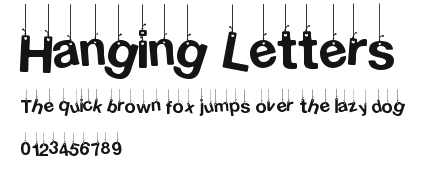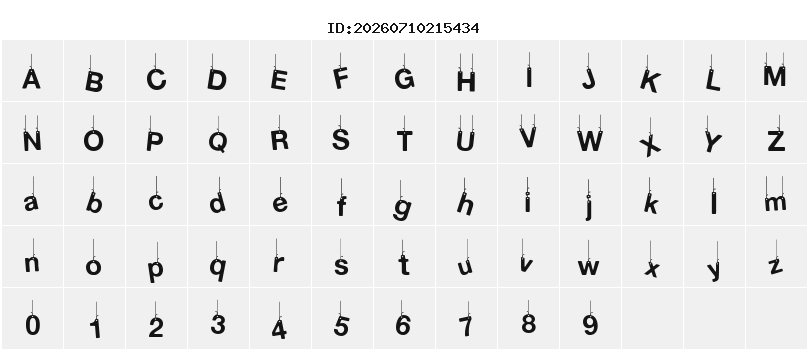
• Font Name: Hanging Letters
• Full Font Name: Hanging Letters
• Version: Version 1.00 February 17, 2014, initial release
• Designer: Hareesh Seela
About Hanging Letters.ttf
Hanging Letters.ttf is a modern, elegant sans-serif font designed for ultimate readability and visual harmony. Perfect for branding, headlines, web design, and print materials.